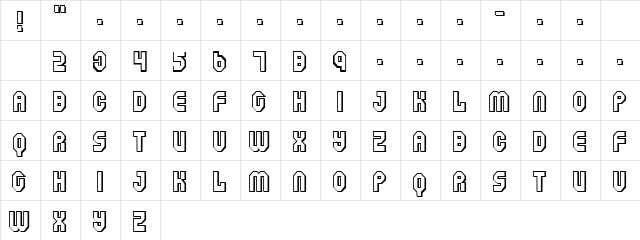
Pretty Samin Regular
Design Context for Pretty Samin Typeface
Pretty Samin is a composed and adaptable typeface that performs quietly and consistently across a wide range of design contexts.